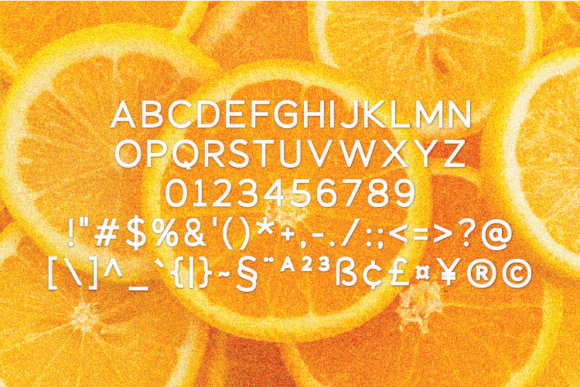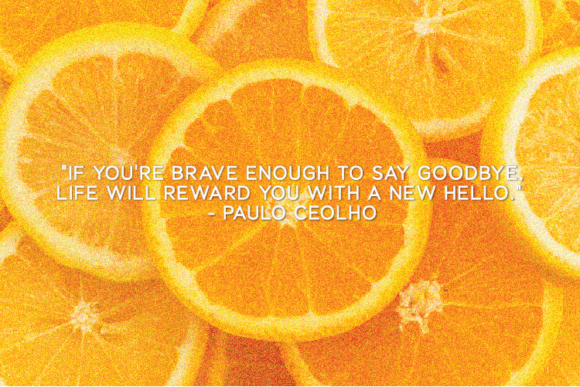
Citrusfest Font: Elevate Your Designs with Tangerine
Are you tired of using the same old fonts in your designs? Look no further than Citrusfest Font, featuring the stylish and versatile Tangerine typeface. This cool and simple lettered sans serif font is designed to complement every project you’re working on, adding a touch of freshness and sophistication to your creations.
What is Citrusfest Font?
Citrusfest Font is a unique and modern font that is perfect for designers and crafters looking to add a pop of personality to their work. The Tangerine font is a beautifully crafted sans serif typeface that exudes a sense of simplicity and elegance. Its clean lines and minimalist aesthetic make it an excellent choice for a wide range of design projects.
Features of Citrusfest Font
- Cool and Simple Design: The Tangerine font boasts a sleek and modern design that is sure to turn heads. Its simple yet stylish aesthetic makes it perfect for creating beautiful headings, gorgeous invitations, and stunning logos.
- Versatile: Citrusfest Font is incredibly versatile, making it suitable for a wide range of design projects. Whether you’re working on a logo, invitation, or social media graphic, this font is sure to impress.
- Easy to Read: The sans serif design of the Tangerine font ensures that it is easy to read, even at small sizes. This makes it perfect for use in body text, as well as headings and titles.
- High-Quality: Citrusfest Font is a high-quality font that is designed to deliver exceptional results. Its crisp and clean lines ensure that it looks great in any design.
Uses for Citrusfest Font
The possibilities are endless when it comes to using Citrusfest Font. Here are just a few ideas to get you started:
- Logos and Branding: Create a stunning logo for your business or brand with Citrusfest Font. Its modern and sleek design ensures that your logo will stand out from the crowd.
- Invitations and Stationery: Add a touch of elegance to your invitations and stationery with Citrusfest Font. Its beautiful and sophisticated design is perfect for weddings, parties, and other special occasions.
- Social Media Graphics: Elevate your social media graphics with Citrusfest Font. Its clean and modern design ensures that your graphics will look great on any platform.
- Headings and Titles: Use Citrusfest Font to create beautiful headings and titles for your website, blog, or marketing materials. Its stylish and versatile design ensures that it will complement any project.
Why Choose Citrusfest Font?
With so many fonts to choose from, why should you choose Citrusfest Font? Here are just a few reasons:
- Unique Design: Citrusfest Font features a unique and stylish design that is sure to set your designs apart from the crowd.
- High-Quality: Citrusfest Font is a high-quality font that is designed to deliver exceptional results.
- Versatile: Citrusfest Font is incredibly versatile, making it suitable for a wide range of design projects.